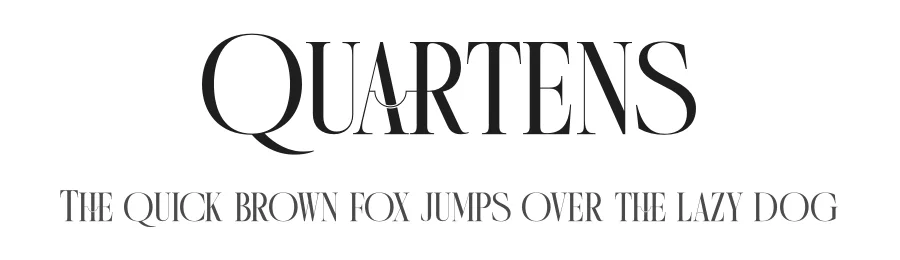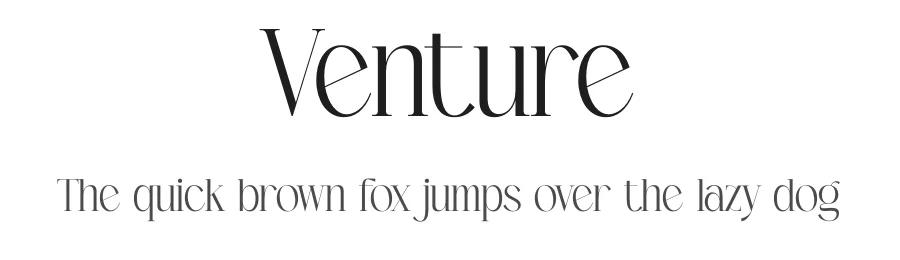
About Rahgbok Font
Rahgbok Specifications
| Font Family | Rahgbok |
| Full Name | Rahgbok |
| Glyph Count | 292 glyphs |
| PostScript Name | Rahgbok |
Rahgbok ships with 3 OpenType features you can switch on in apps that support them (Illustrator, InDesign, Affinity, Figma, CSS font-feature-settings).
Rahgbok supports 222 languages.
Rahgbok Font is a versatile serif font that works for both headings and body text. Pair it with a contrasting sans-serif or slab serif font to add visual interest and a clear distinction between titles and body copy.